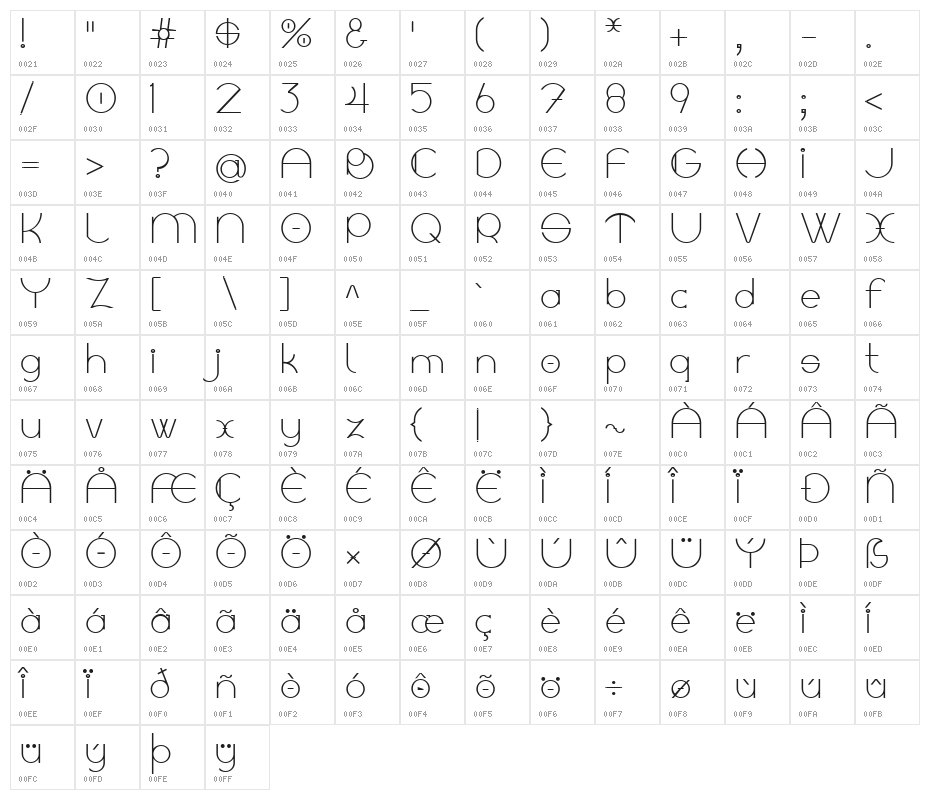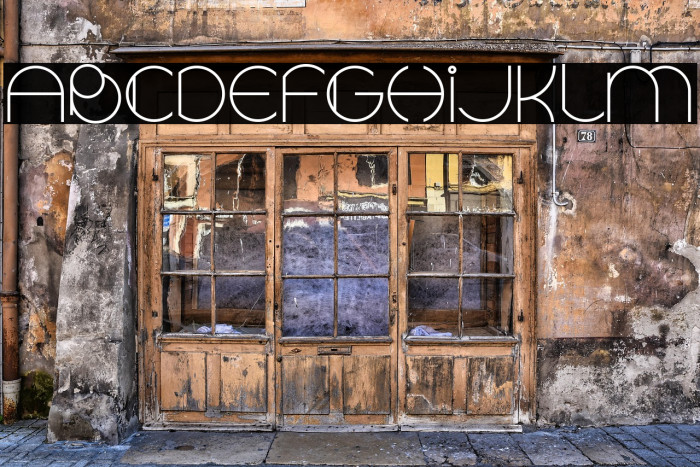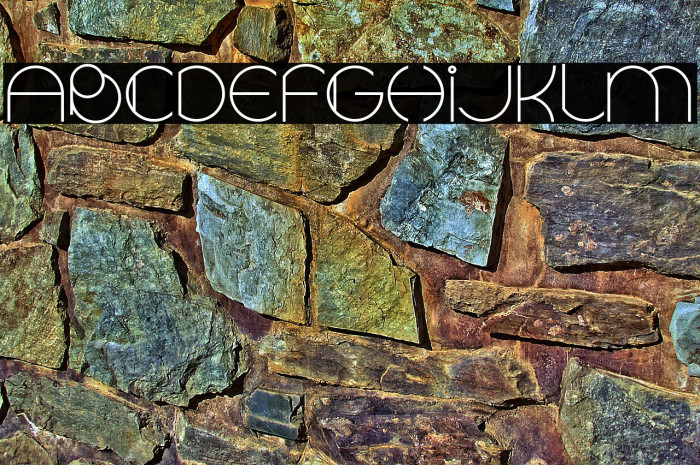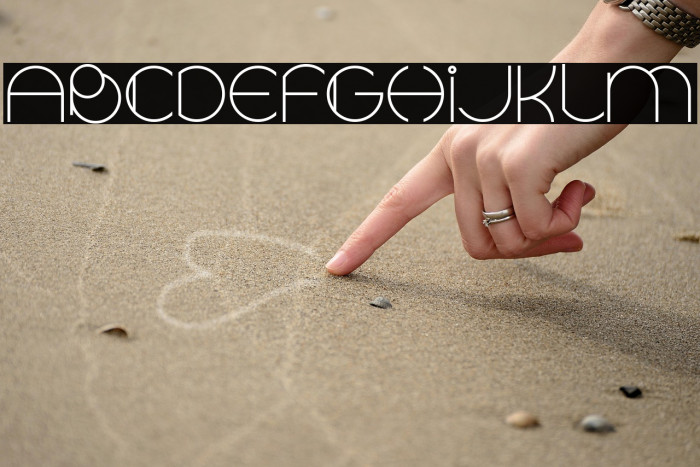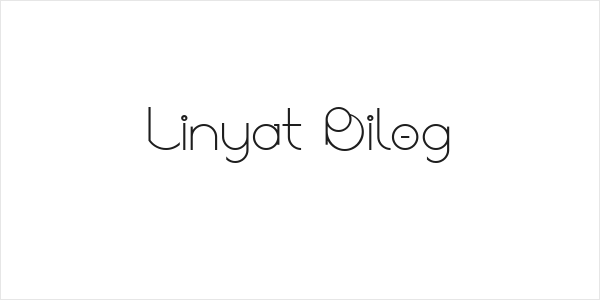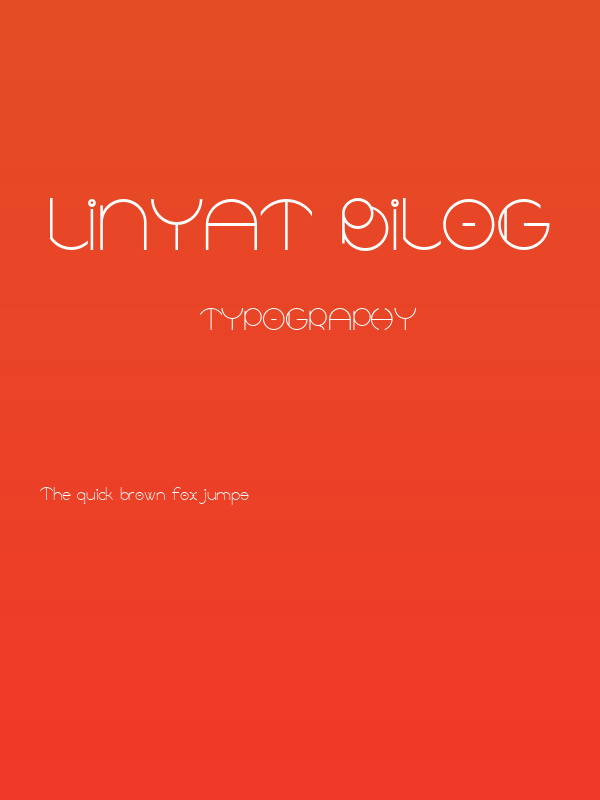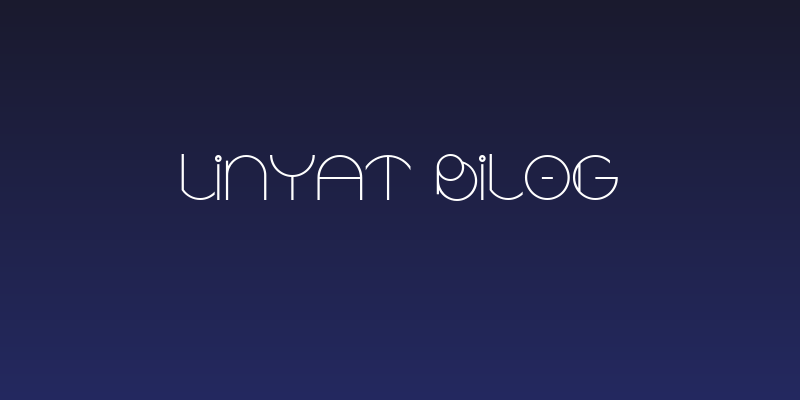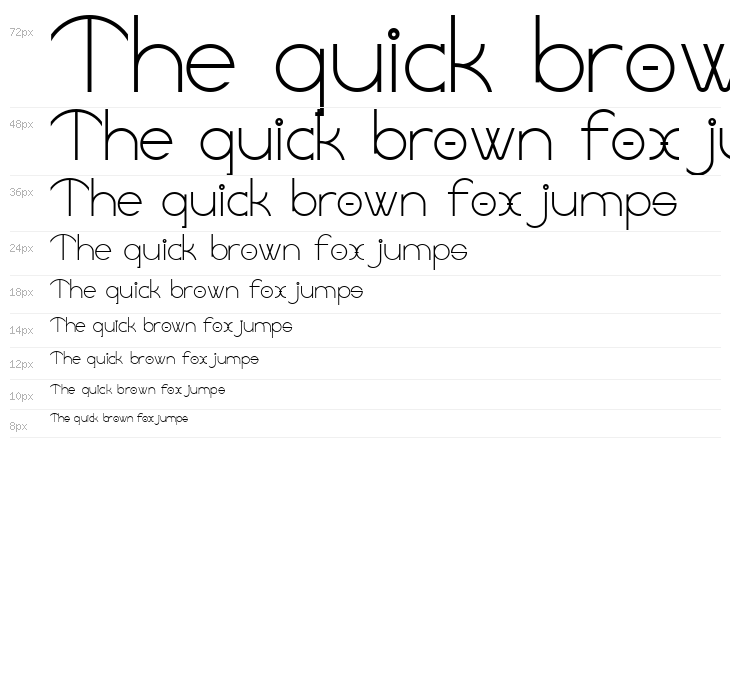
Linyat Bilog Font
Linyat Bilog Description
This font features a modern and geometric design, characterized by its clean lines and circular elements. The uppercase letters exhibit a unique style with consistent curves and straight lines, creating a futuristic appearance. The lowercase letters maintain this geometric theme, offering a harmonious blend of circular and linear forms. Numbers are designed with a similar aesthetic, ensuring uniformity across the character set. Special characters are crafted with the same attention to detail, making them suitable for a variety of design applications. The overall look is sleek and minimalistic, ideal for contemporary projects.
Use CaseLogos, Headlines, Branding
Proposed ProjectsIdeal for branding, logos, modern web design, and tech-related projects.